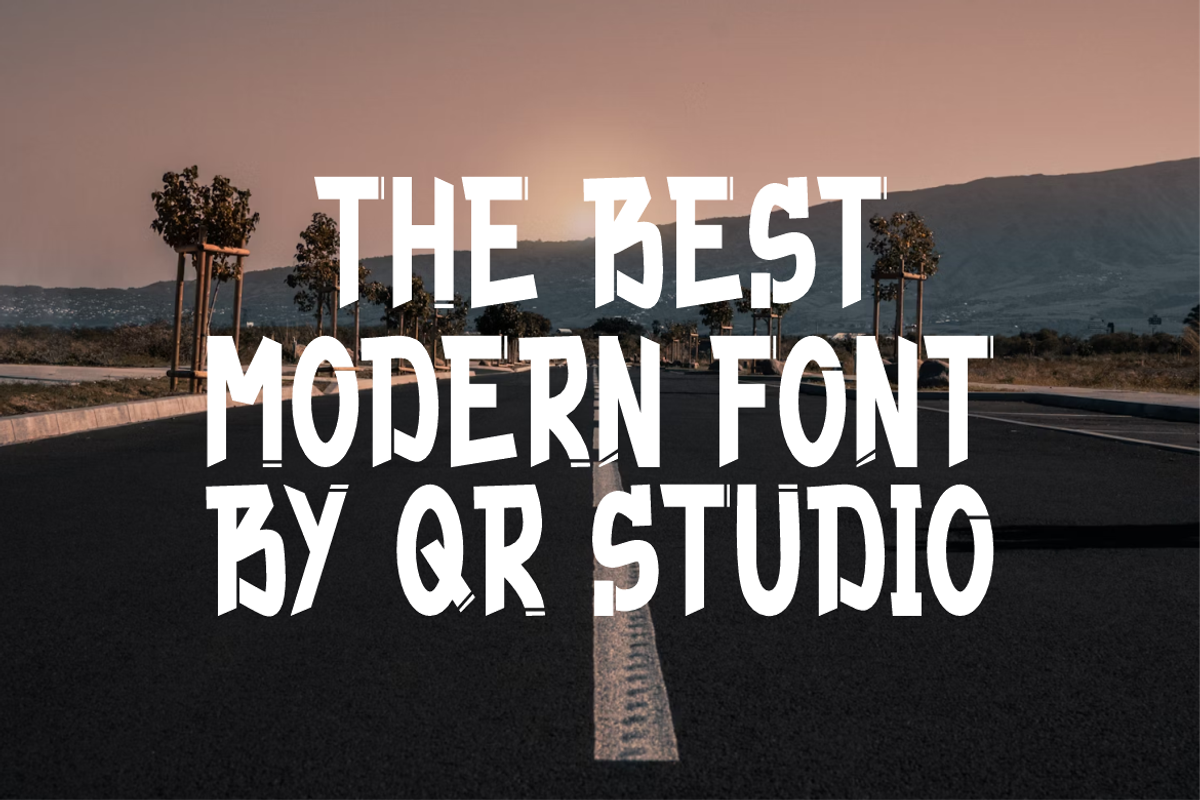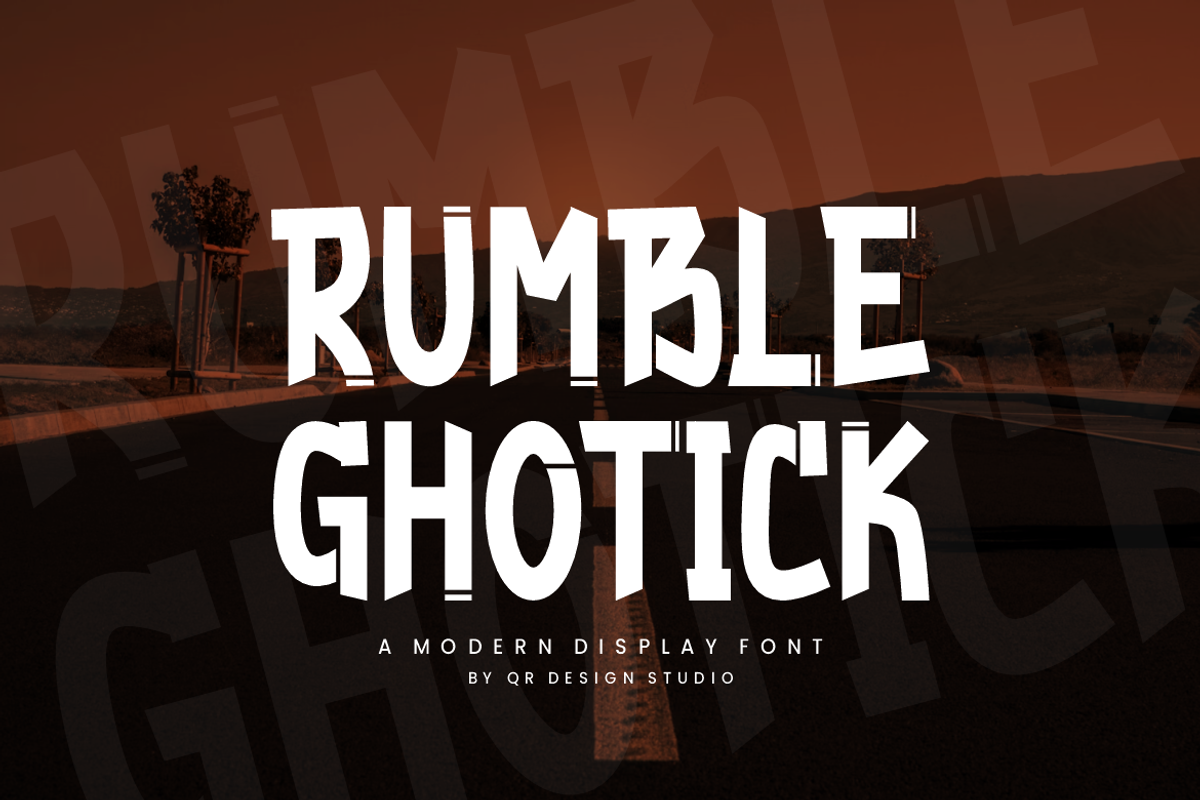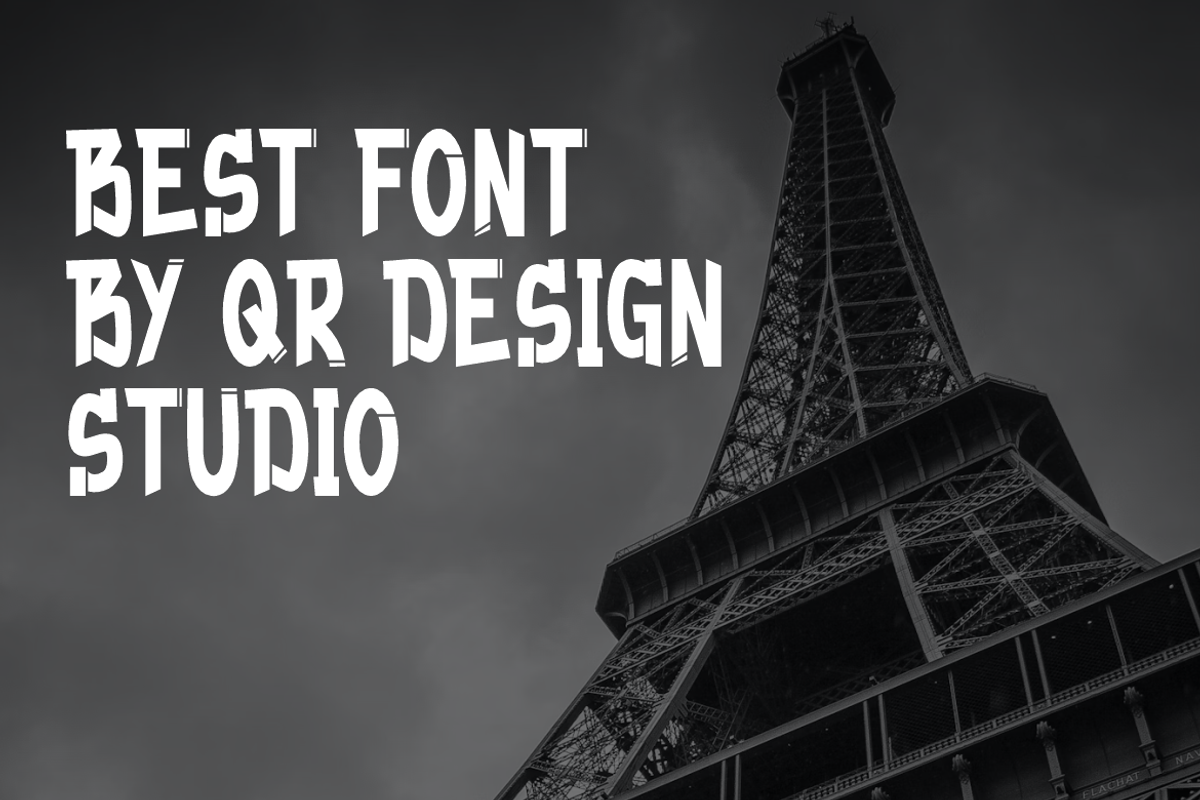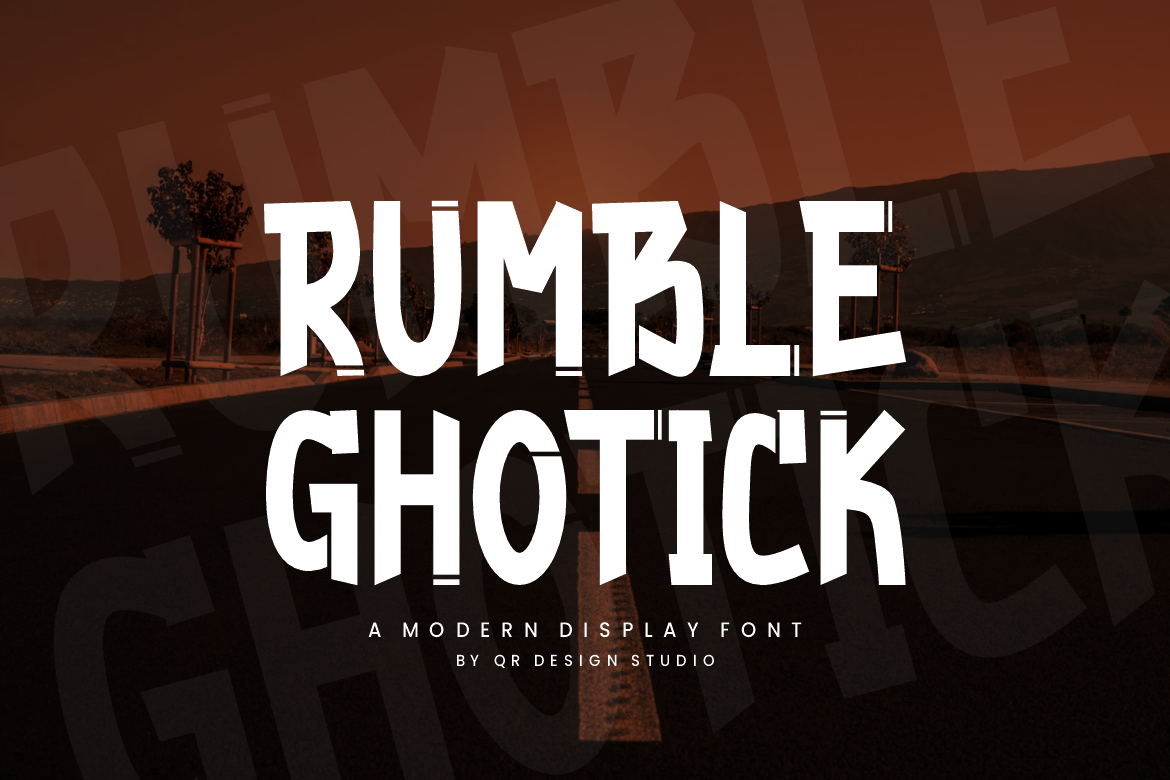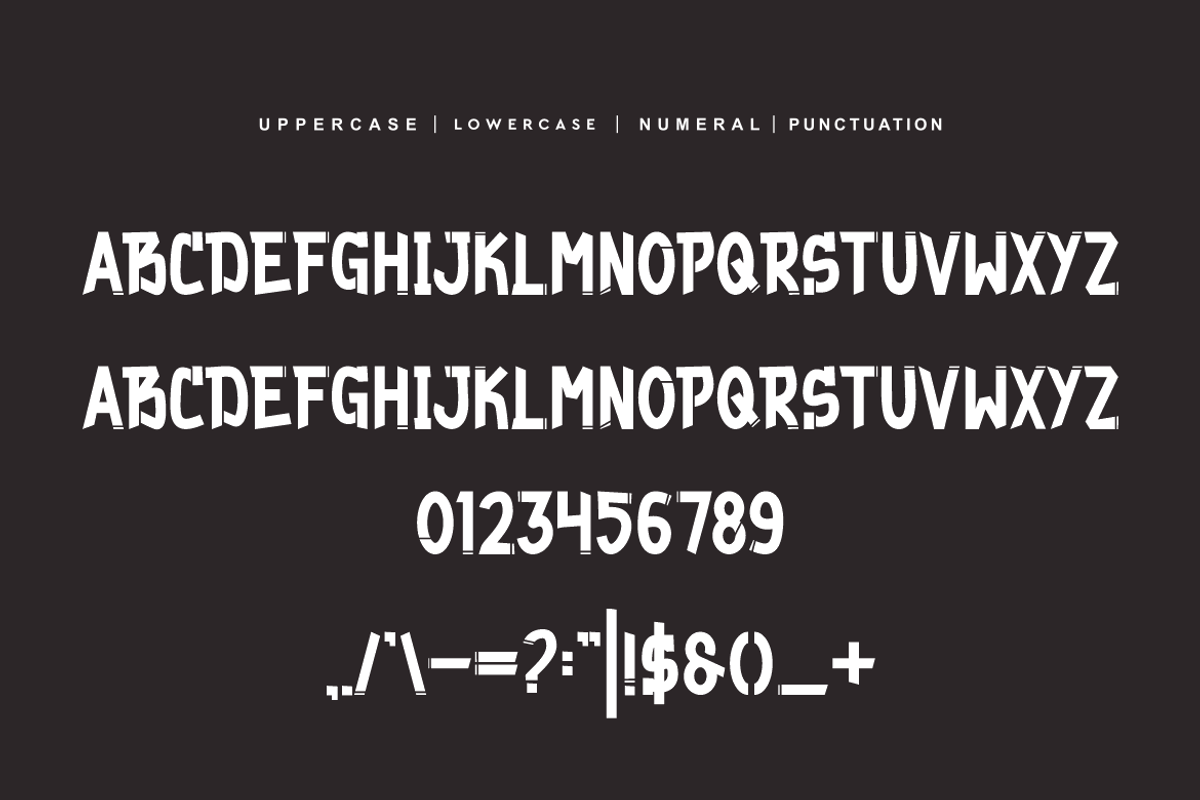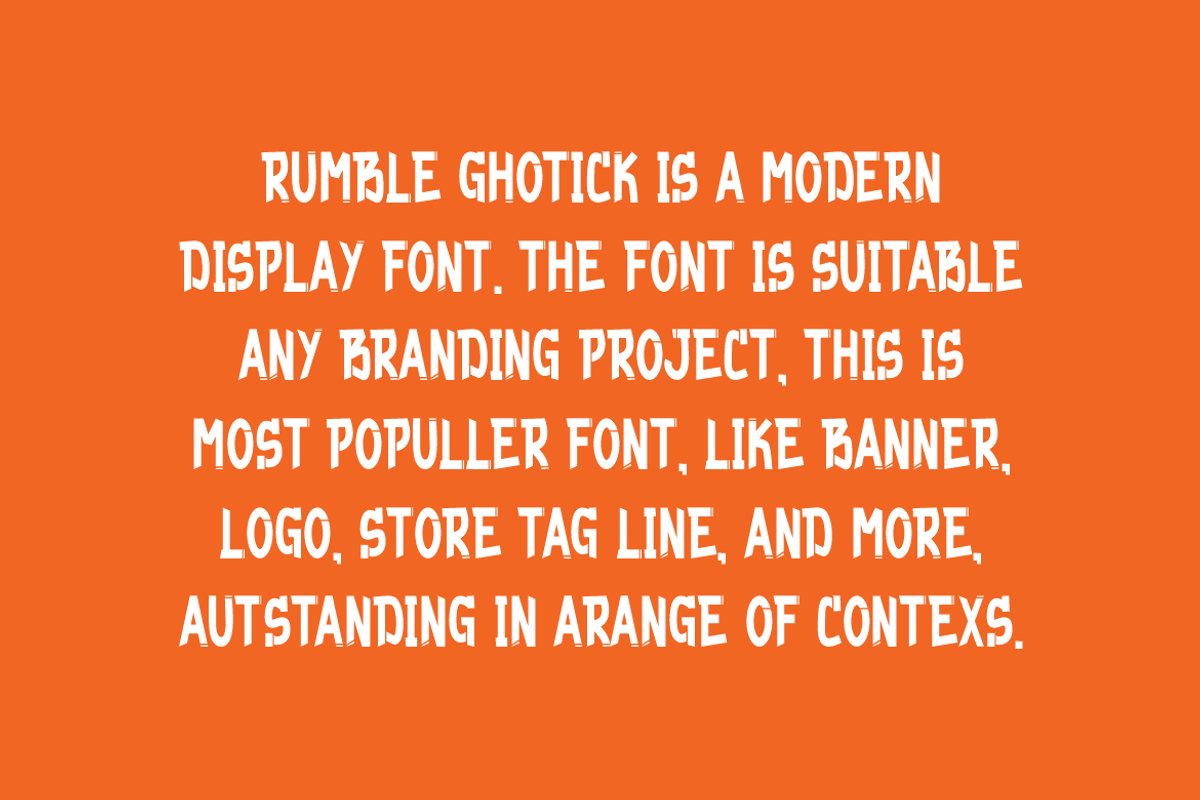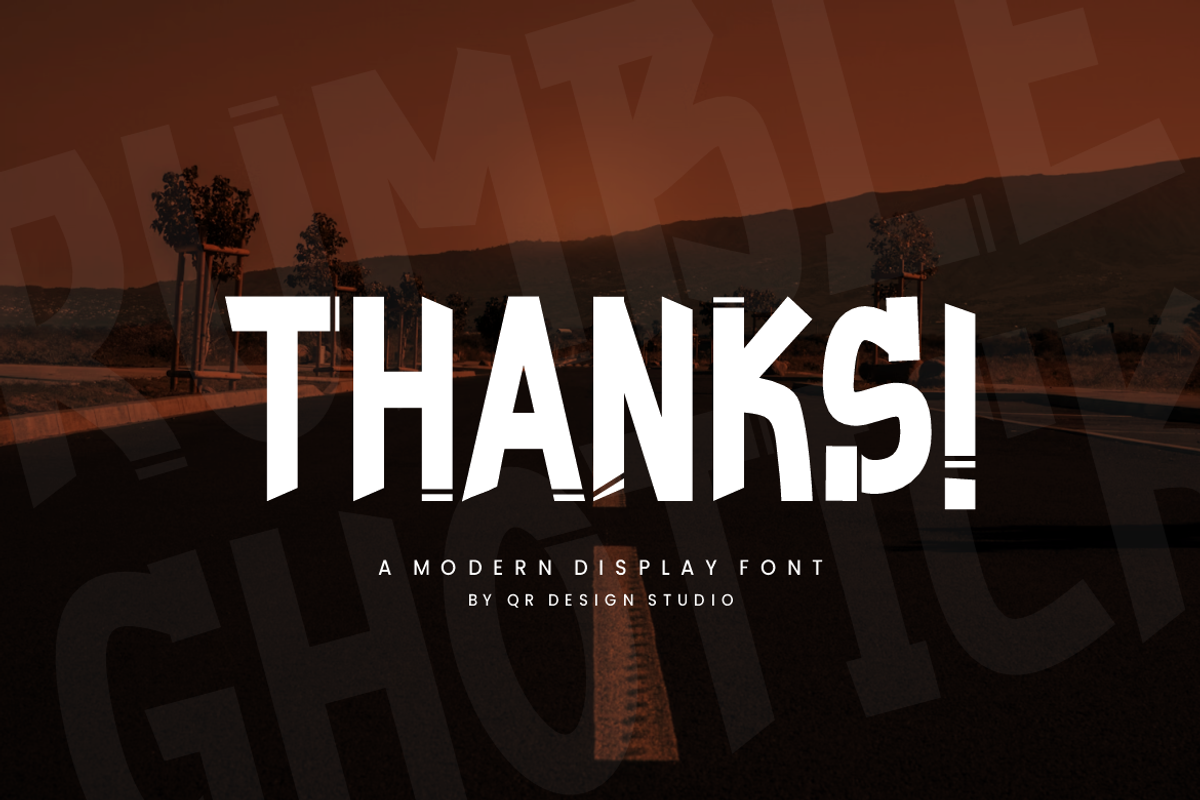
Rumble Ghotick - Marker Font
Rumble Ghotick - Marker Font is a hand drawn and authentic display font. The font is suitable for any branding project like poster, logo, sport, and many more. Outstanding in a wide range of contexts.